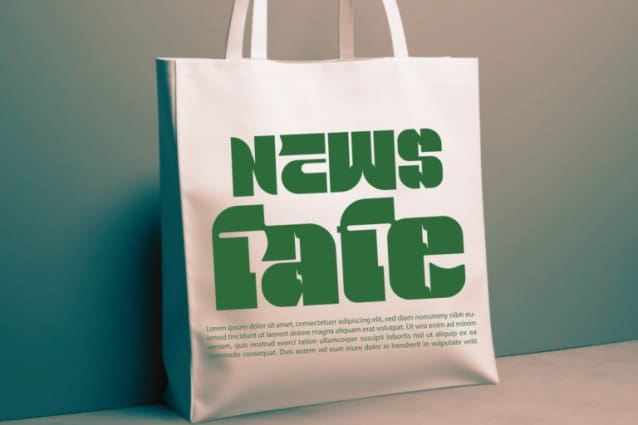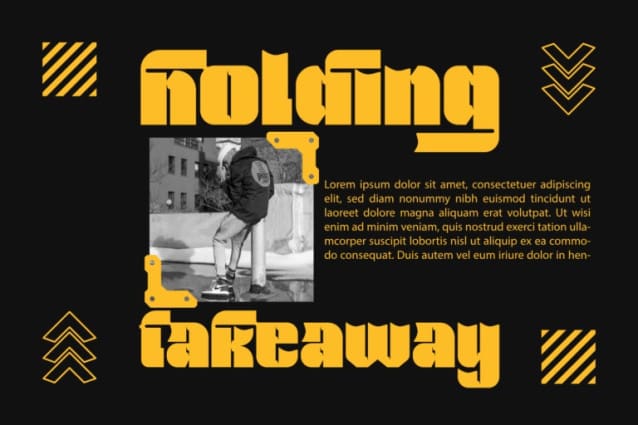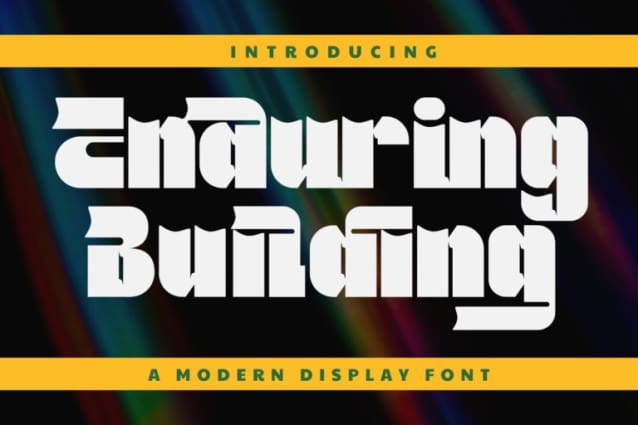
Enduring Building Font
Enduring Building Font is a bold and distinctive display font that stands out with its unique and unconventional letterforms. The extra bold sans-serif that makes a statement with every letter. Whether you’re looking to pack a punch in your headlines or bring sleek attitude to your designs, this font does all the heavy lifting. Perfect for those who believe that when it comes to type, bigger and bolder is better. Perfect for posters, logos, headlines, and creative branding projects, it’s offers a fresh and artistic approach to typography.
Enduring Building was built with OpenType features and includes 100 ligatures, alternate, numbers, punctuation, and it also supports other languages.